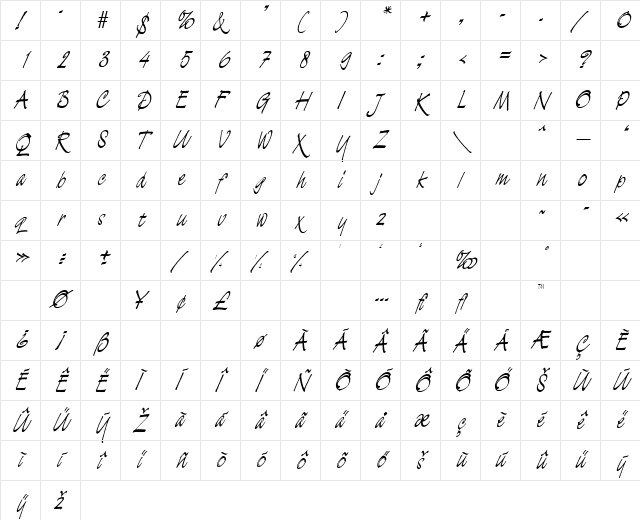
Joanna Normal Free Font
Joanna Normal
Design Context for Joanna
Joanna is a composed and adaptable typeface that performs quietly and consistently across a wide range of design contexts.